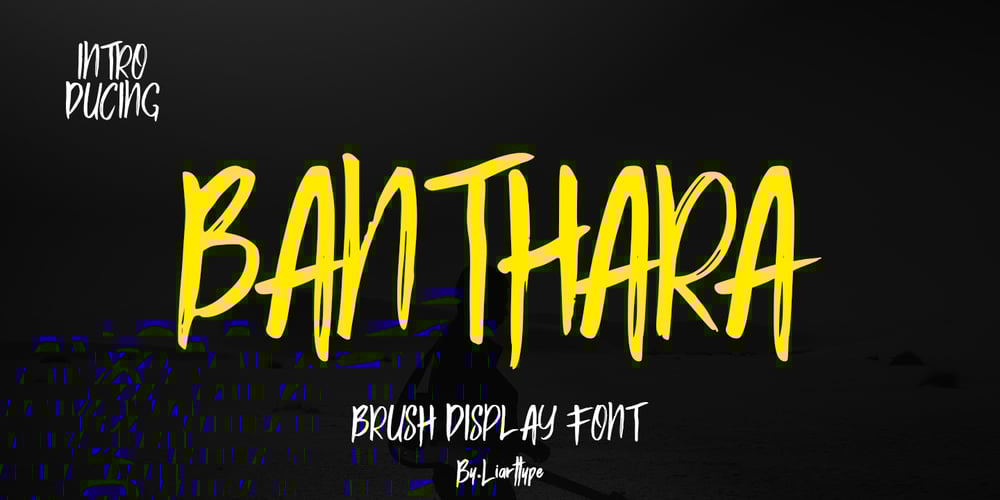
Banthara
Banthara font
Banthara Font Family was designed by Ali Sifak Muftari and published by Liartgraphic. Banthara contains 1 styles and family package options. Meet our newest product, we call this product Banthara font.Banthara font are cute typeface fontWhit a uniqe touch and assertiveBanthara font is very nice to use on:fashion magazine,logos, ,and photography,landing page,fliyer,What’s includes- mutilngual support- alternate- ligature